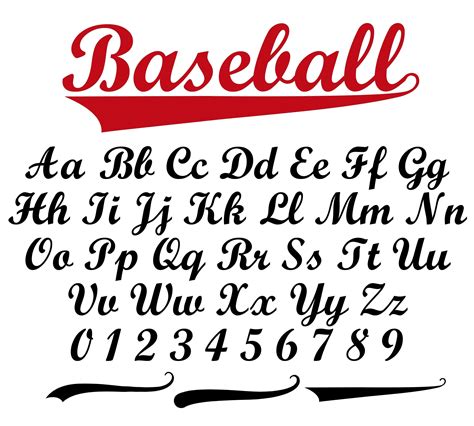
Hey guys! Are you looking to add a sporty and vintage touch to your designs? Look no further! The OSC Baseball SC Font with Tail is here to give your projects that classic baseball feel. In this article, we’ll dive into what makes this font so special, where you can download it for free, and how to use it effectively in your designs. So, grab your peanuts and cracker jacks, and let’s get started!
What is the OSC Baseball SC Font with Tail?
The OSC Baseball SC Font with Tail is a stylized typeface that captures the essence of vintage baseball aesthetics. Designed with a distinct, sporty flair, this font is perfect for projects that require a touch of nostalgia and athleticism. The “SC” in the name stands for Small Caps , indicating that the font includes a set of small capital letters that complement the regular uppercase and lowercase characters. But what really sets this font apart is the “Tail,” a decorative extension that adds a dynamic and eye-catching element to certain letters, making your text stand out even more.
This font is more than just a collection of letters; it’s a design tool that can evoke feelings of tradition, competition, and Americana. The OSC Baseball SC Font with Tail has a unique personality that makes it suitable for a wide range of applications. Whether you’re working on a sports-themed poster, a vintage logo, or a custom jersey design, this font can help you achieve the perfect look. Its bold and sturdy letterforms convey strength and reliability, while the decorative tail adds a touch of playfulness and flair. This combination of attributes makes it a versatile choice for designers looking to make a statement.
The font’s design also incorporates subtle details that enhance its overall appeal. The slightly rounded edges of the letters give it a friendly and approachable feel, while the consistent stroke weight ensures that it remains legible even at smaller sizes. The inclusion of small caps provides additional flexibility, allowing you to create varied and visually interesting typographic compositions. Furthermore, the font’s character set typically includes numerals, punctuation marks, and symbols, ensuring that you have all the necessary tools to create complete and professional designs. In summary, the OSC Baseball SC Font with Tail is a carefully crafted typeface that blends vintage charm with modern usability, making it a valuable addition to any designer’s toolkit.
How to Use the OSC Baseball SC Font in Your Designs
Now that you’ve got the OSC Baseball SC Font with Tail , let’s talk about how to use it effectively! This font is incredibly versatile, but here are a few tips to make your designs really shine:
- Sports-Themed Graphics: This is a no-brainer! Use the font for anything related to baseball, softball, or other sports. Think team logos, posters, and jersey designs. The font’s sporty aesthetic and decorative tail make it a perfect fit for these applications. For example, you could use it to create a vintage-inspired baseball team logo, complete with the team name arched above a stylized baseball graphic. The font’s bold letterforms will convey a sense of strength and tradition, while the tail adds a touch of dynamism.
The OSC Baseball SC Font with Tail is a fantastic choice for anyone looking to infuse their designs with a touch of sporty nostalgia. With its unique tail and classic baseball aesthetic, this font can add character and flair to a wide range of projects. Remember to download it from a reputable source, respect the license agreement, and experiment with different design techniques to make the most of its potential. So go ahead, give it a try, and let your creativity run wild! I hope this guide has been helpful. Happy designing, and have a great time creating amazing visuals!